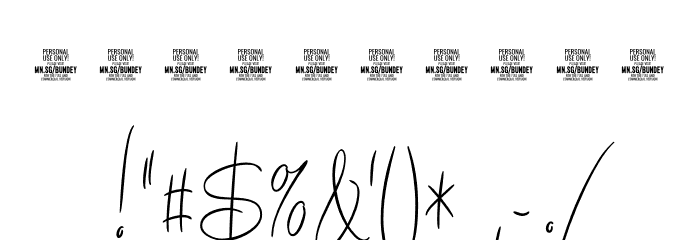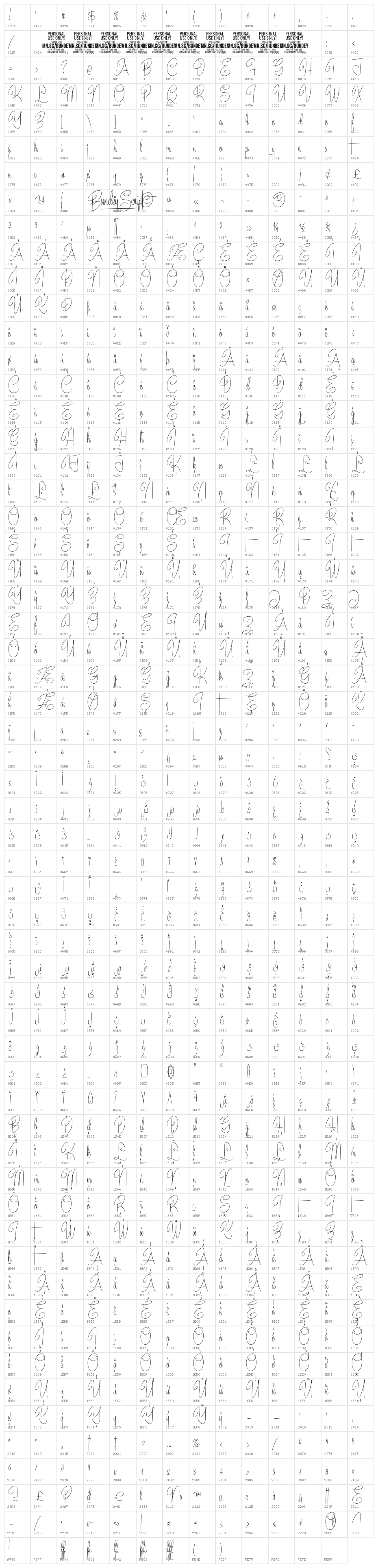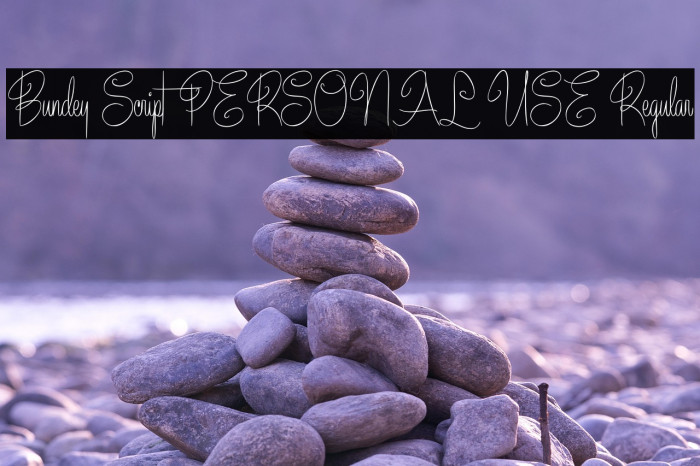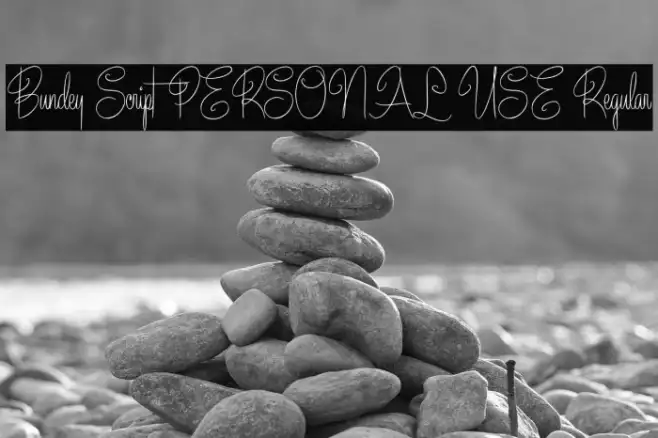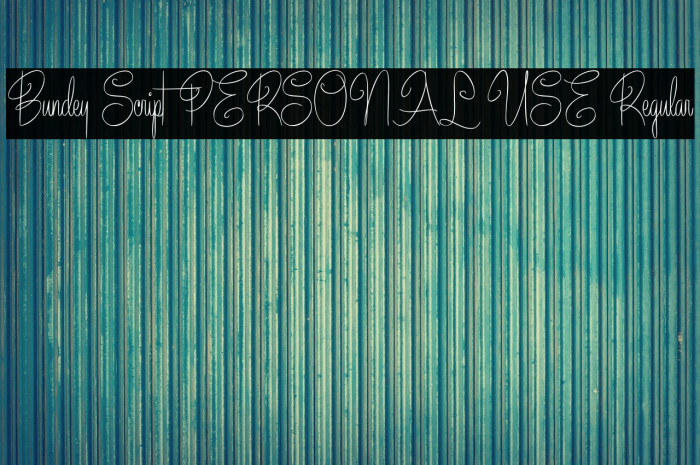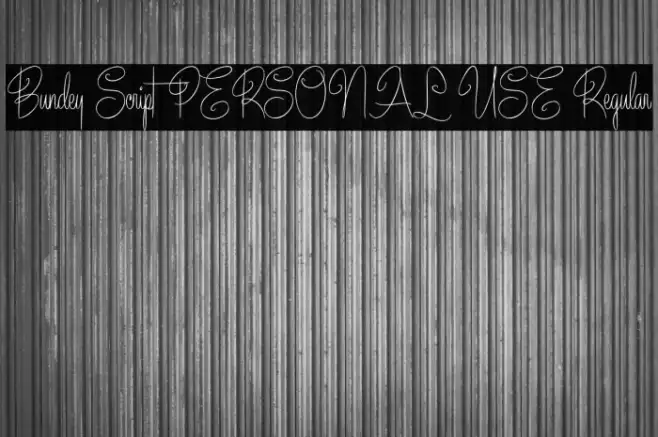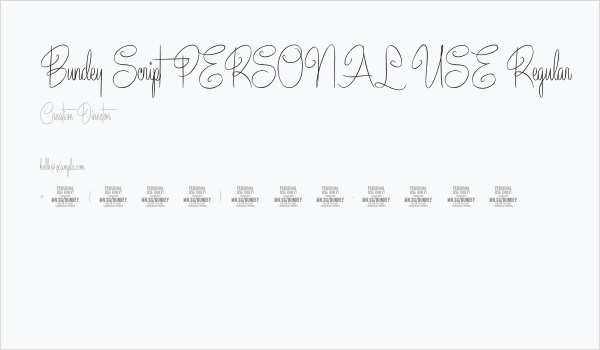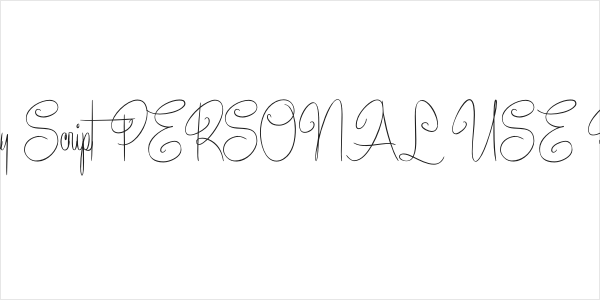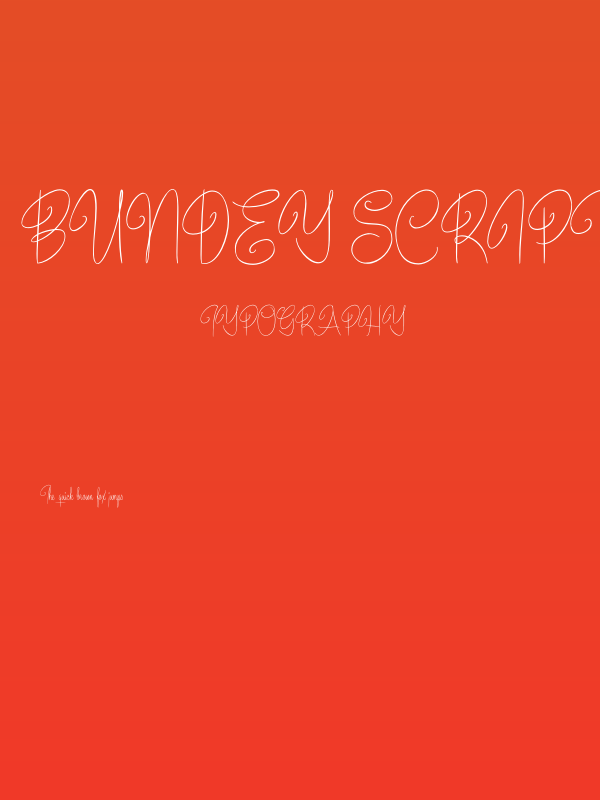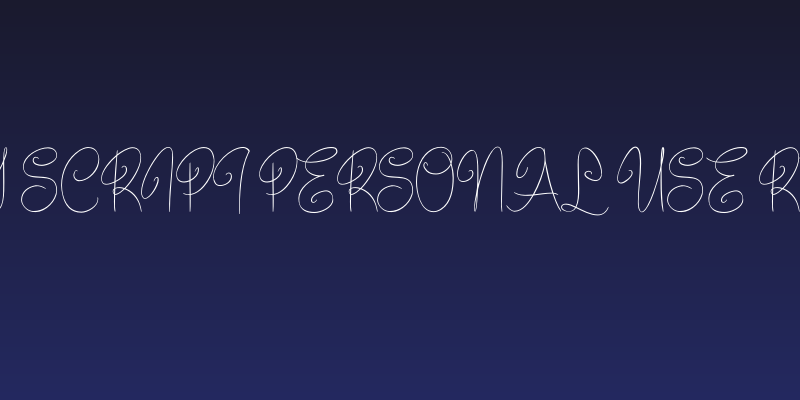
Bundey Script PERSONAL USE Regular Font
Bundey Script PERSONAL USE Regular Description
This font features an elegant and flowing script style, characterized by its thin, delicate strokes and graceful curves. The uppercase letters exhibit a sophisticated flair with extended loops and swashes, while the lowercase letters maintain a consistent fluidity, enhancing the overall aesthetic. The numerals and special characters are designed to complement the script's refined appearance, making it suitable for decorative purposes. The font's airy and light nature gives it a sense of elegance and sophistication, ideal for projects that require a touch of class and style.
Overall StyleElegant, Decorative
Use CaseHeadlines, Invitations, Logos
Proposed ProjectsIdeal for wedding invitations, elegant branding, greeting cards, and decorative headings.